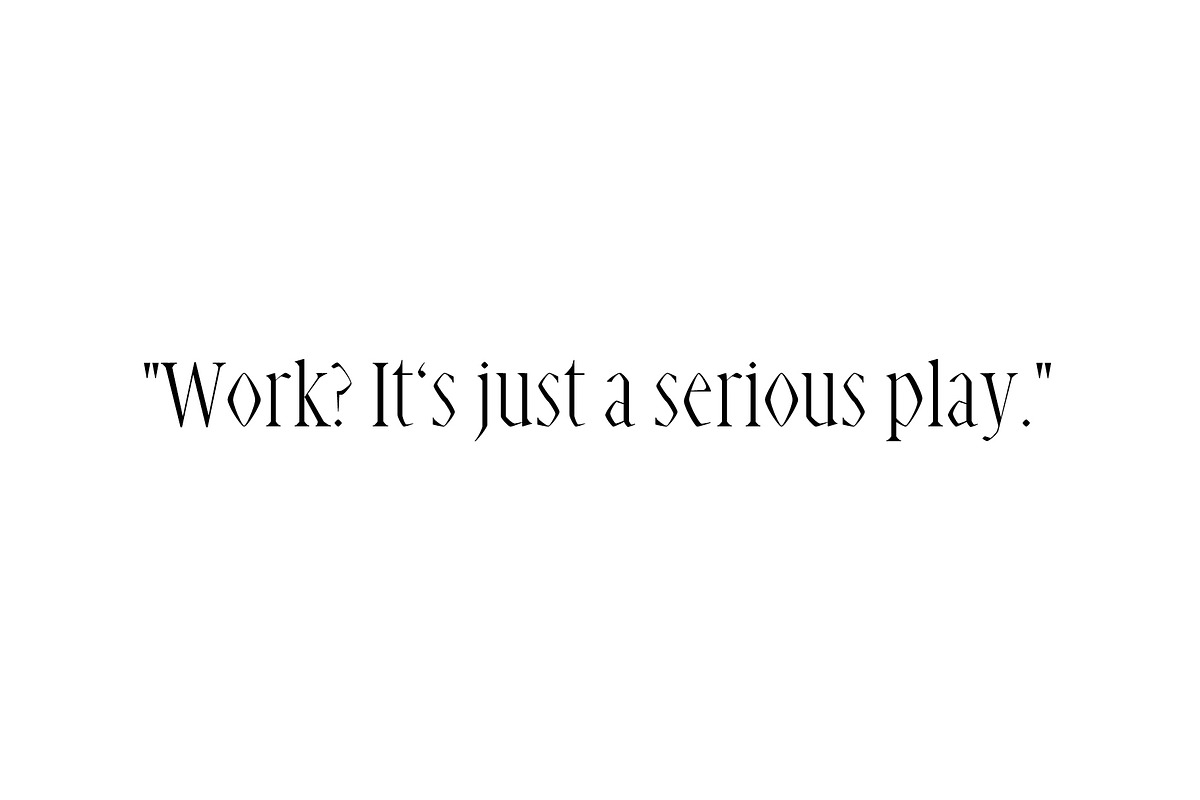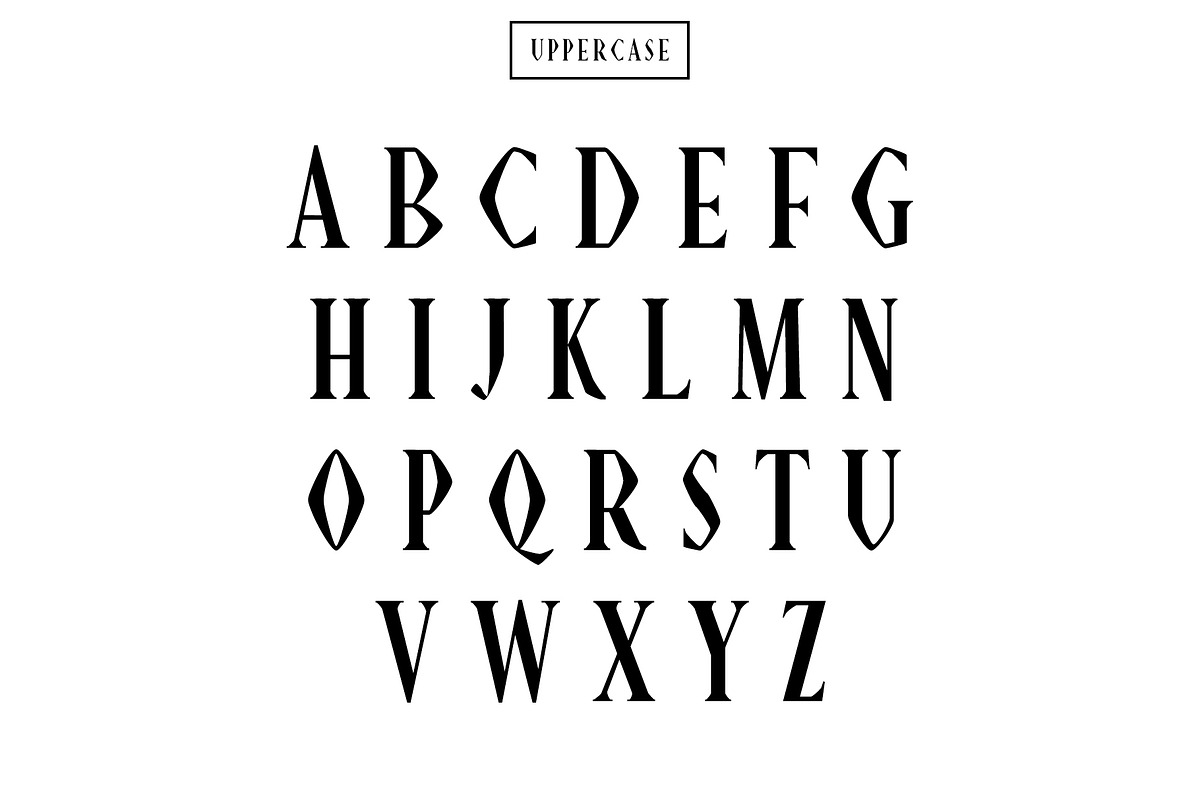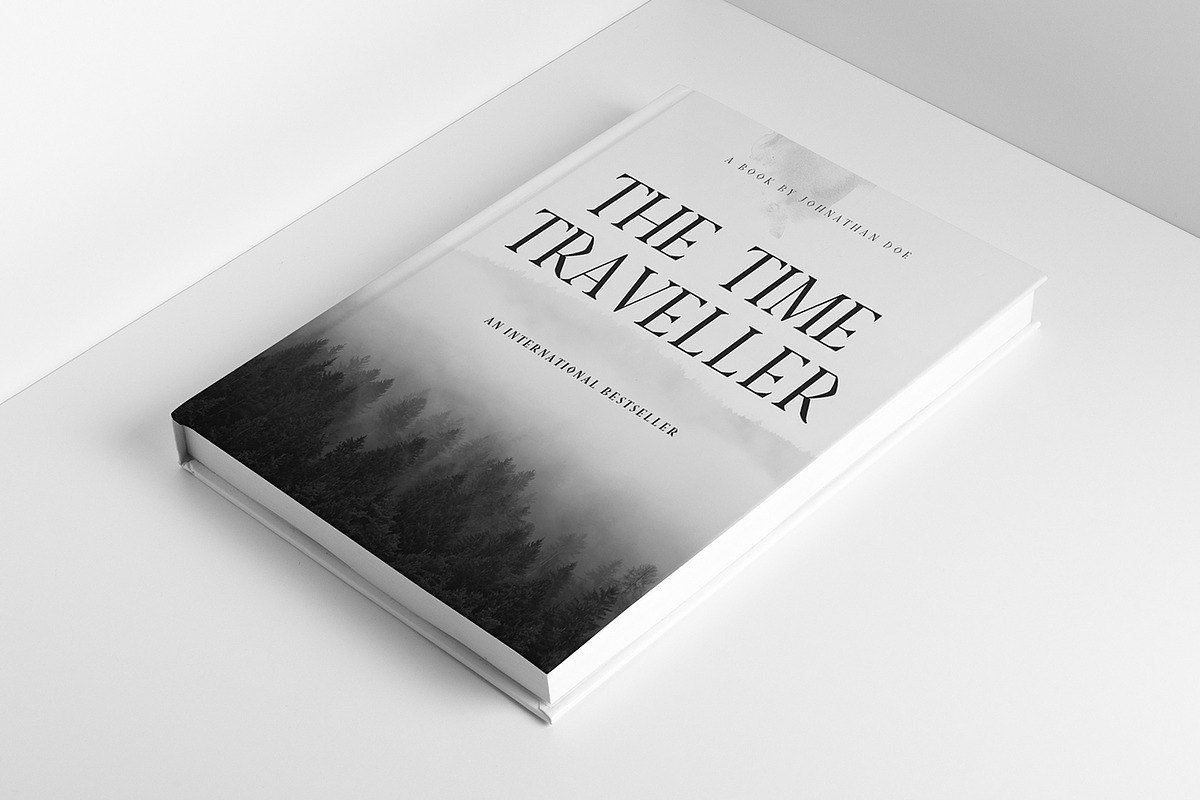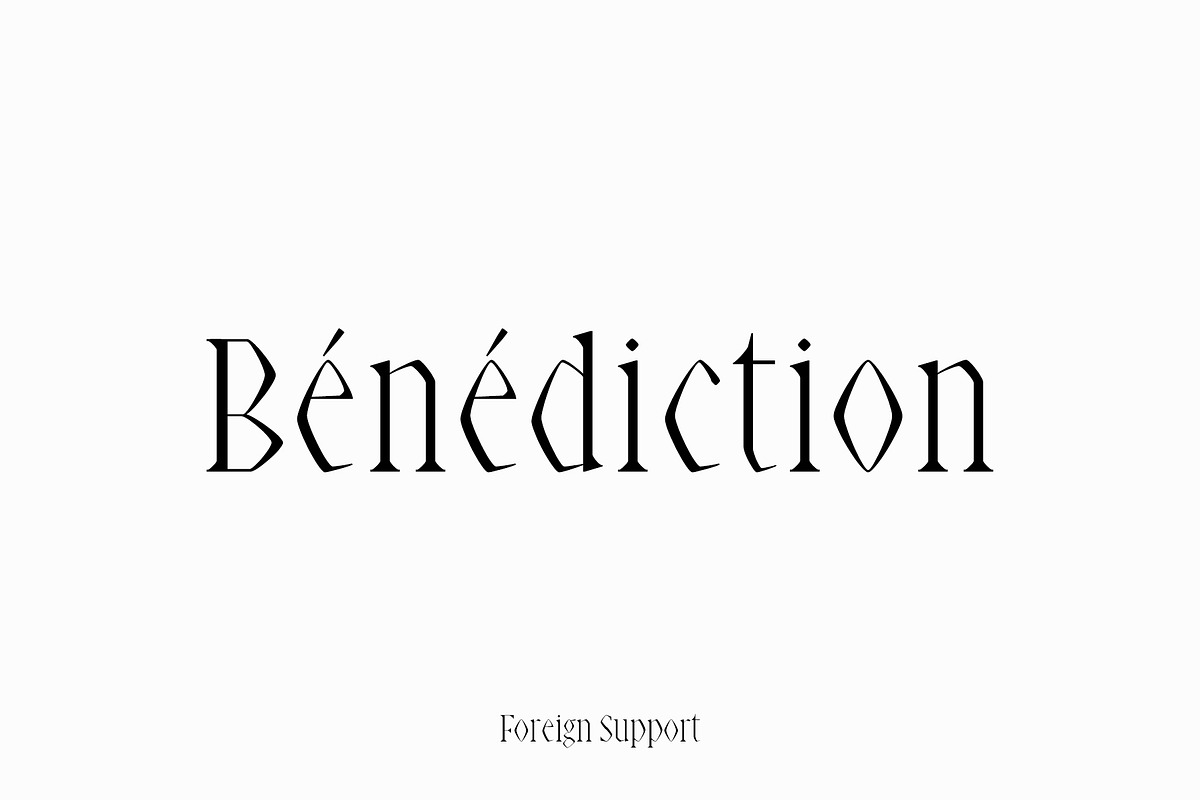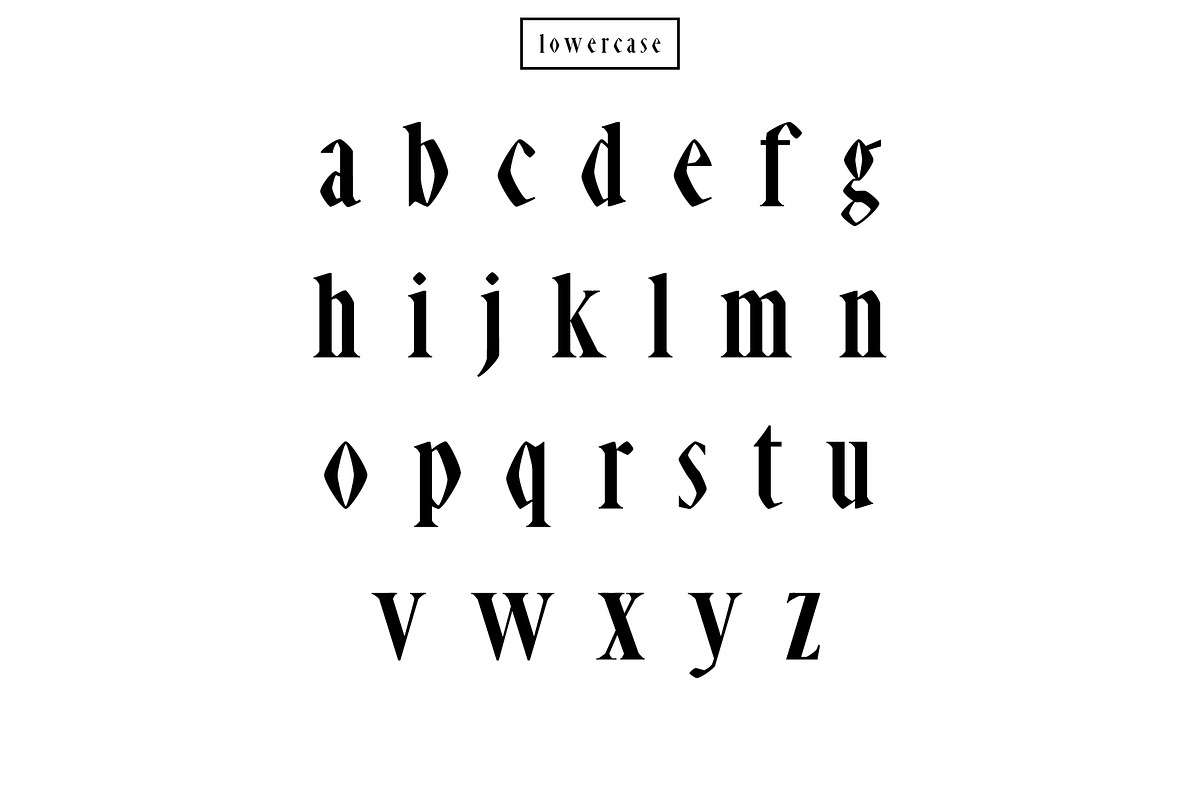
Abell Serif 6 Font Family Pack
Abell Serif 6 Font Family Pack by Creativetacos is a font selected for branding, posters, packaging, typography.
- Abell Serif Font comes with little art-deco touch.
Why Abell Serif 6 Font Family Pack is worth a look
Abell Serif 6 Font Family Pack by Creativetacos fits naturally into Branding, posters, packaging, typography.